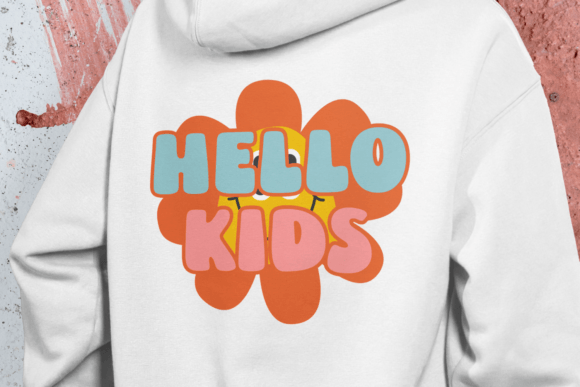
Groovy Smile Font
Groovy Smile is a fun and lively font that radiates good vibes. With its playful groovy style, this font brings a smile to any project. Perfect for adding a touch of retro charm to your designs, Groovy Smile is ideal for posters, invitations, and anything that needs a burst of positive energy. Let your creativity shine with this cheerful and easygoing font that’s sure to spread joy in every letter.